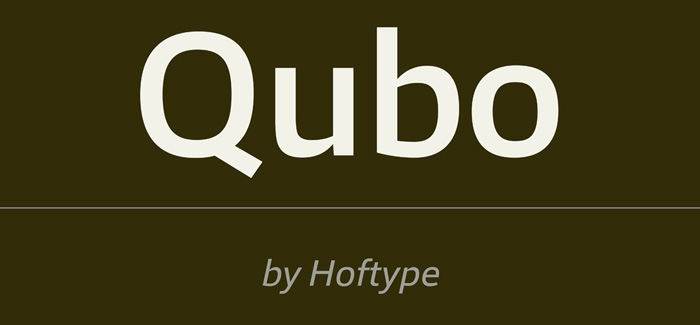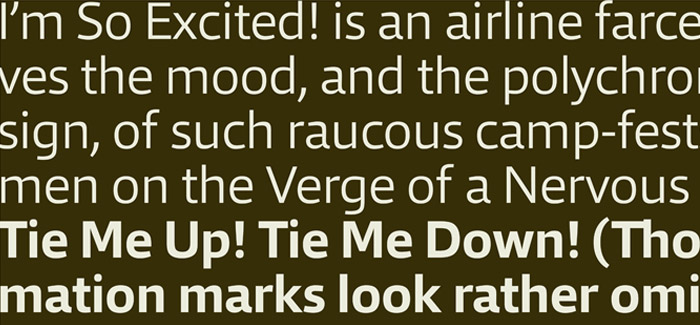
Qubo font
Qubo font, a new forcefully drawn monoline face. Its clear graphics create its appeal and give it distinctive characteristics. The slightly squared round elements make for an open and elegant look; subtle details refer to humanistic models. Qubo is a neutral, cool and very versatile typeface. It works superbly both in print and on the web.
Qubo is well-equipped for ambitious typography. The Qubo family consists of 14 styles, comes in OpenType format with extended language support for more than 40 languages. All weights contain ligatures, proportional lining figures, tabular lining figures, proportional old style figures, lining old style figures, matching currency symbols, fraction- and scientific numerals.